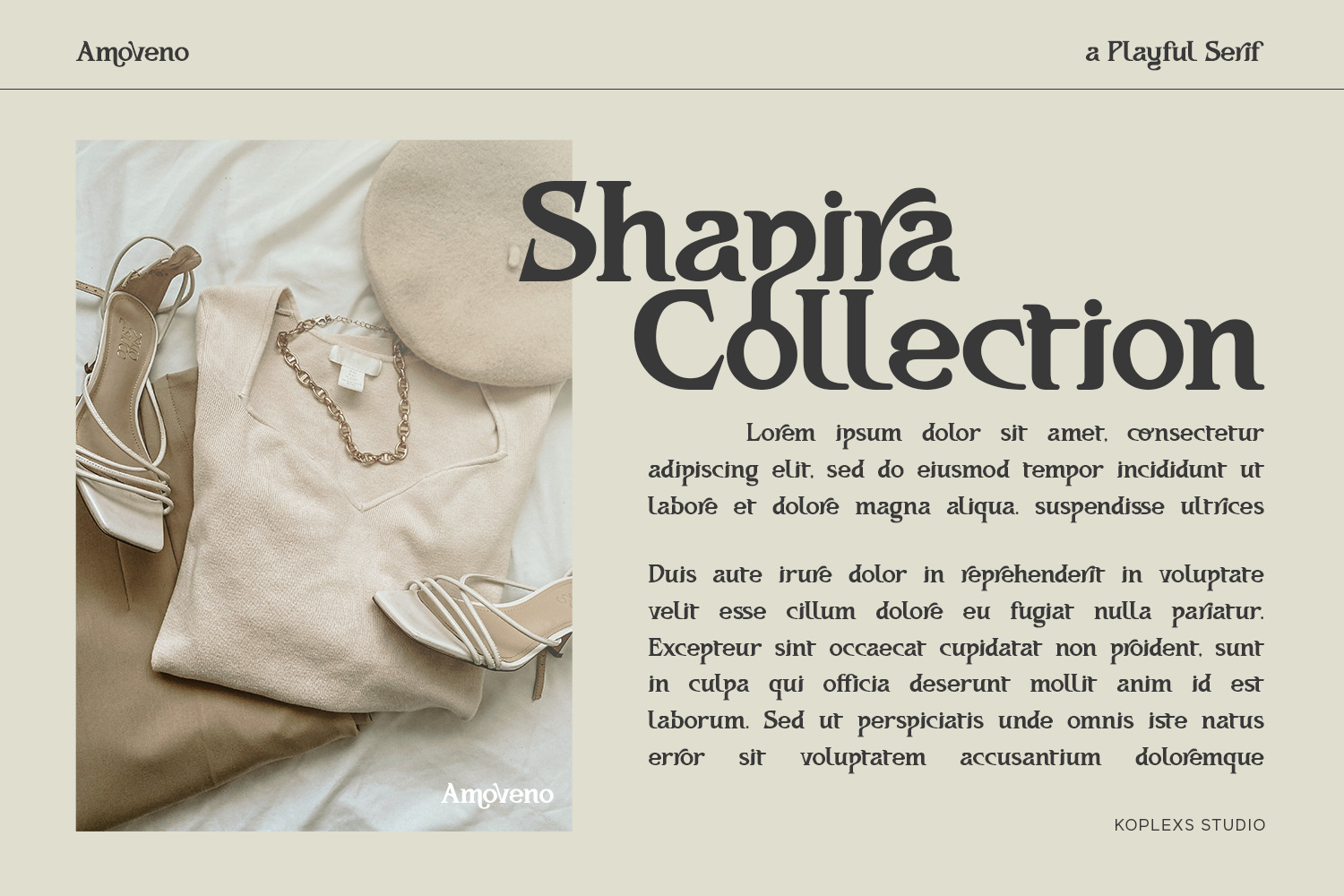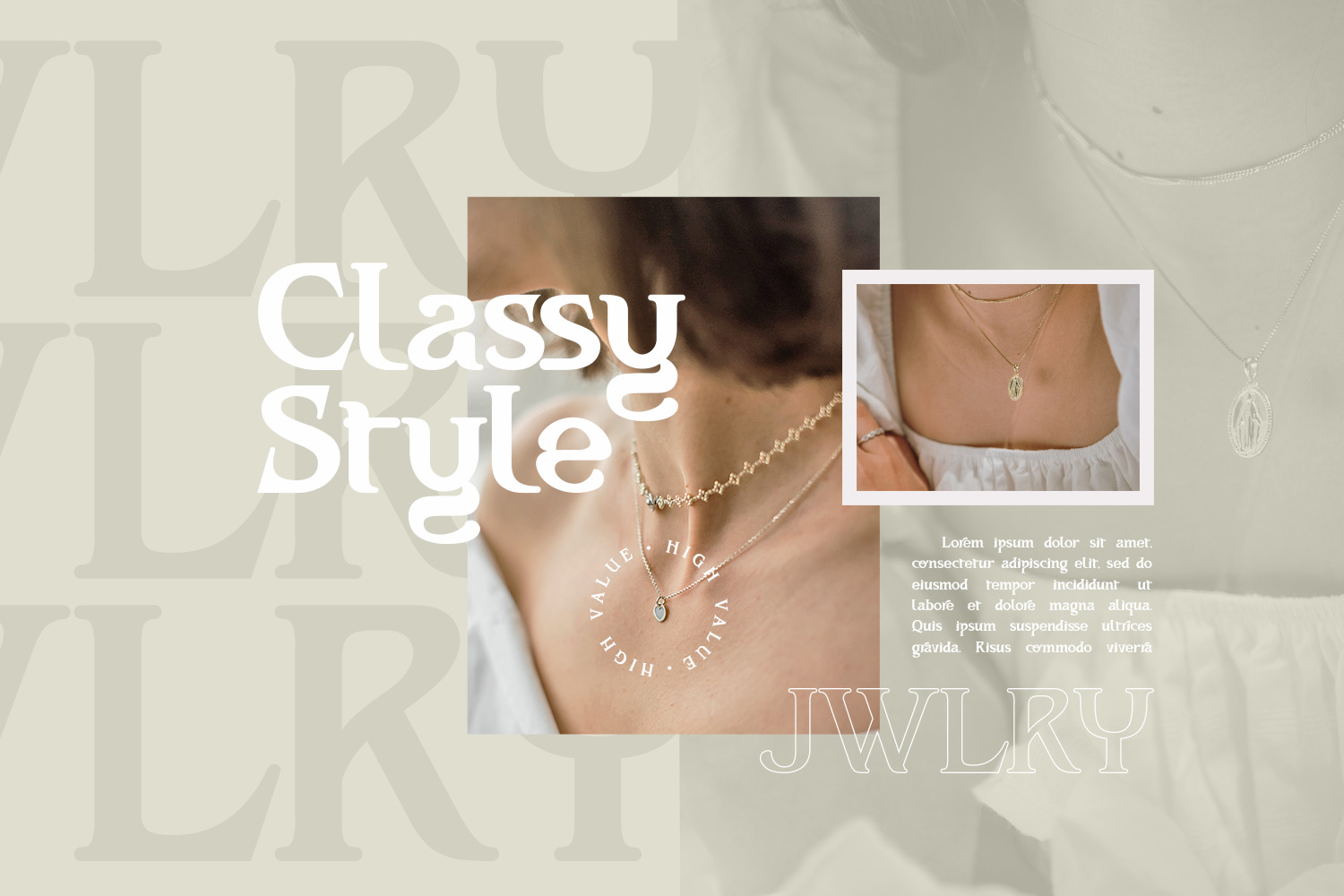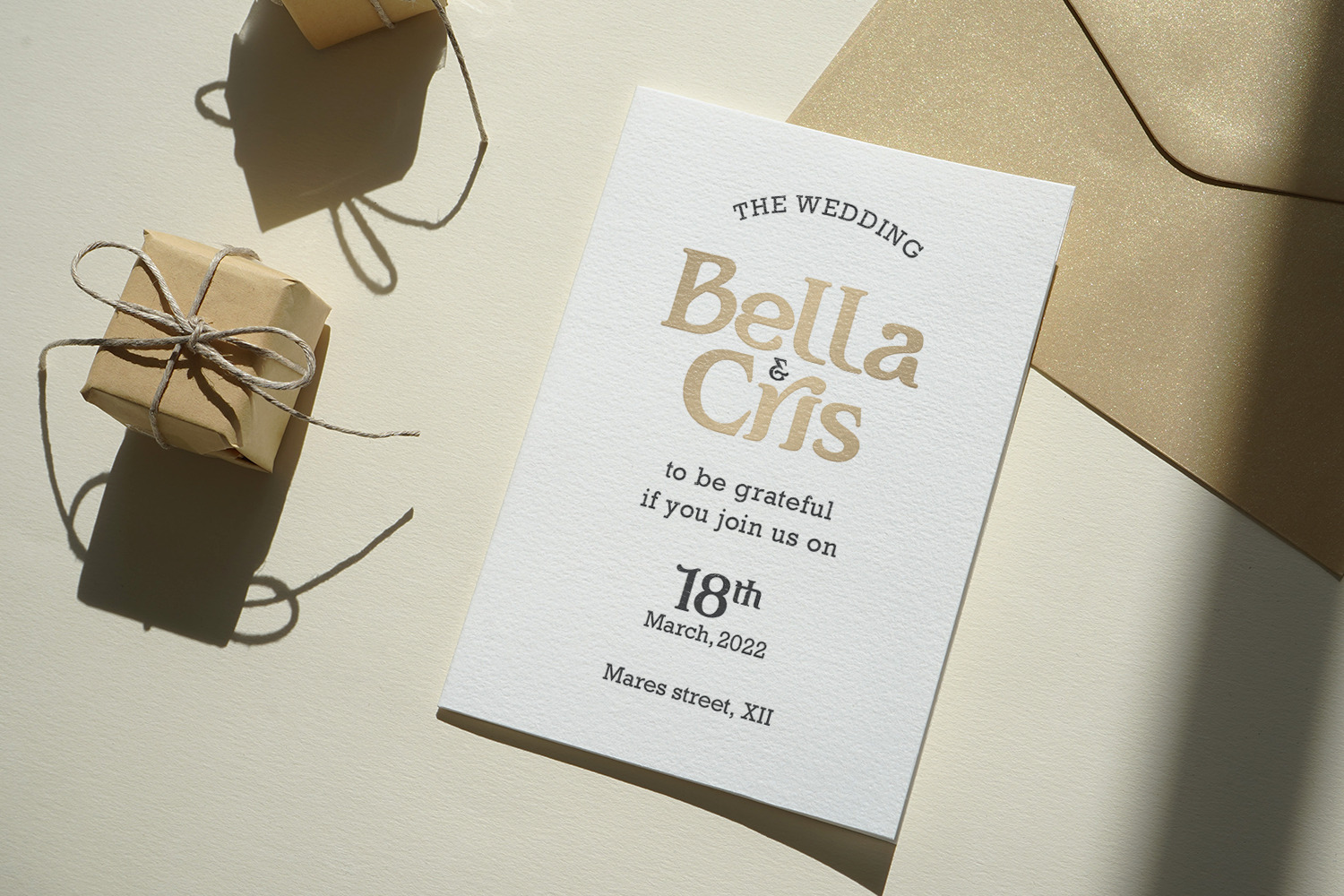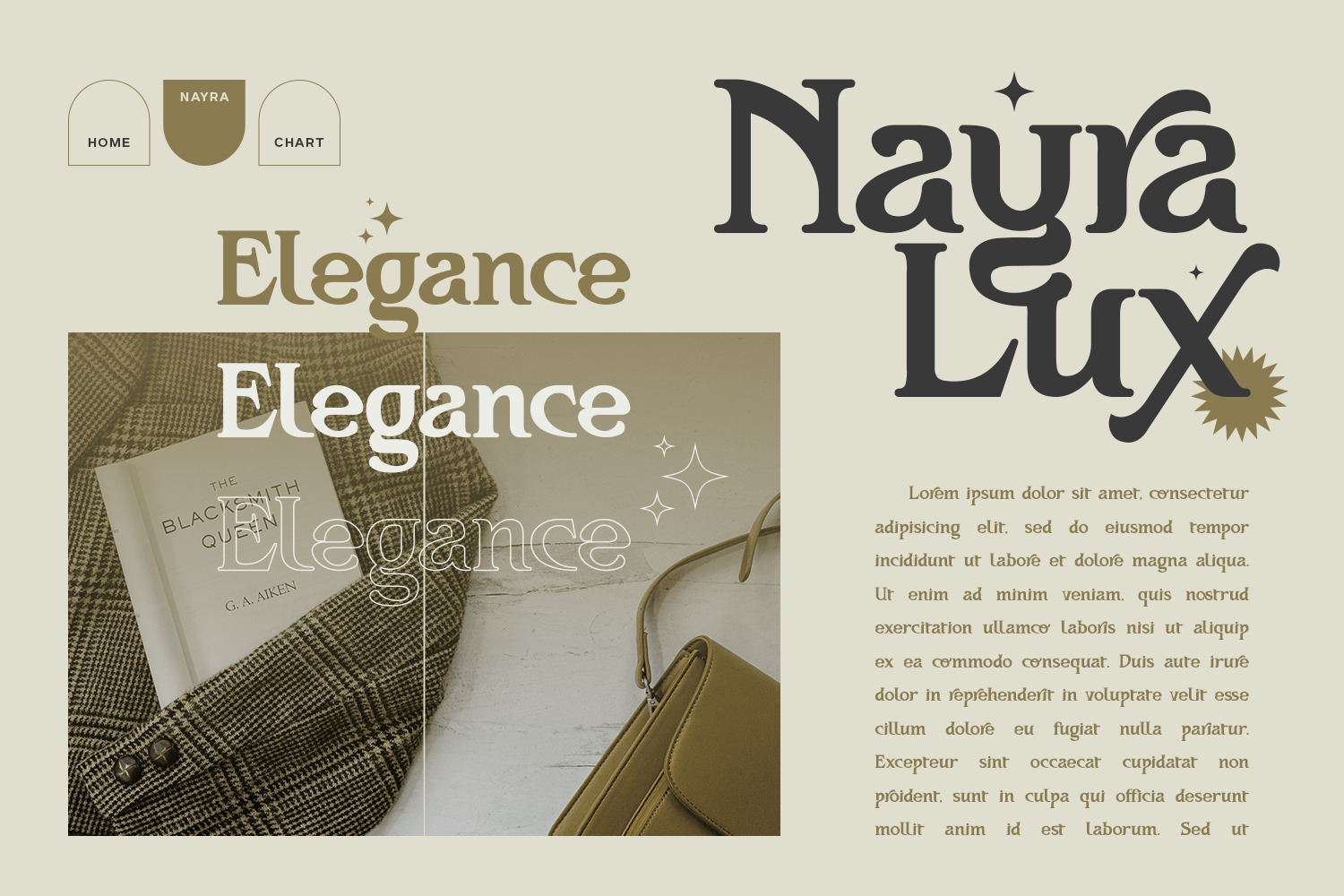
Amoveno Free Font
Amoveno Free Font is a versatile and captivating serif font that effortlessly combines playfulness, elegance, and modernity. Its unique style makes it the perfect choice for a wide range of project ideas, from branding and logo design to clothing branding, product packaging, magazine headers, wedding invitations, poster design, and beyond. This free typeface was designed by a talented Koplexs Studio. If you like it don’t forget to check out the full version.